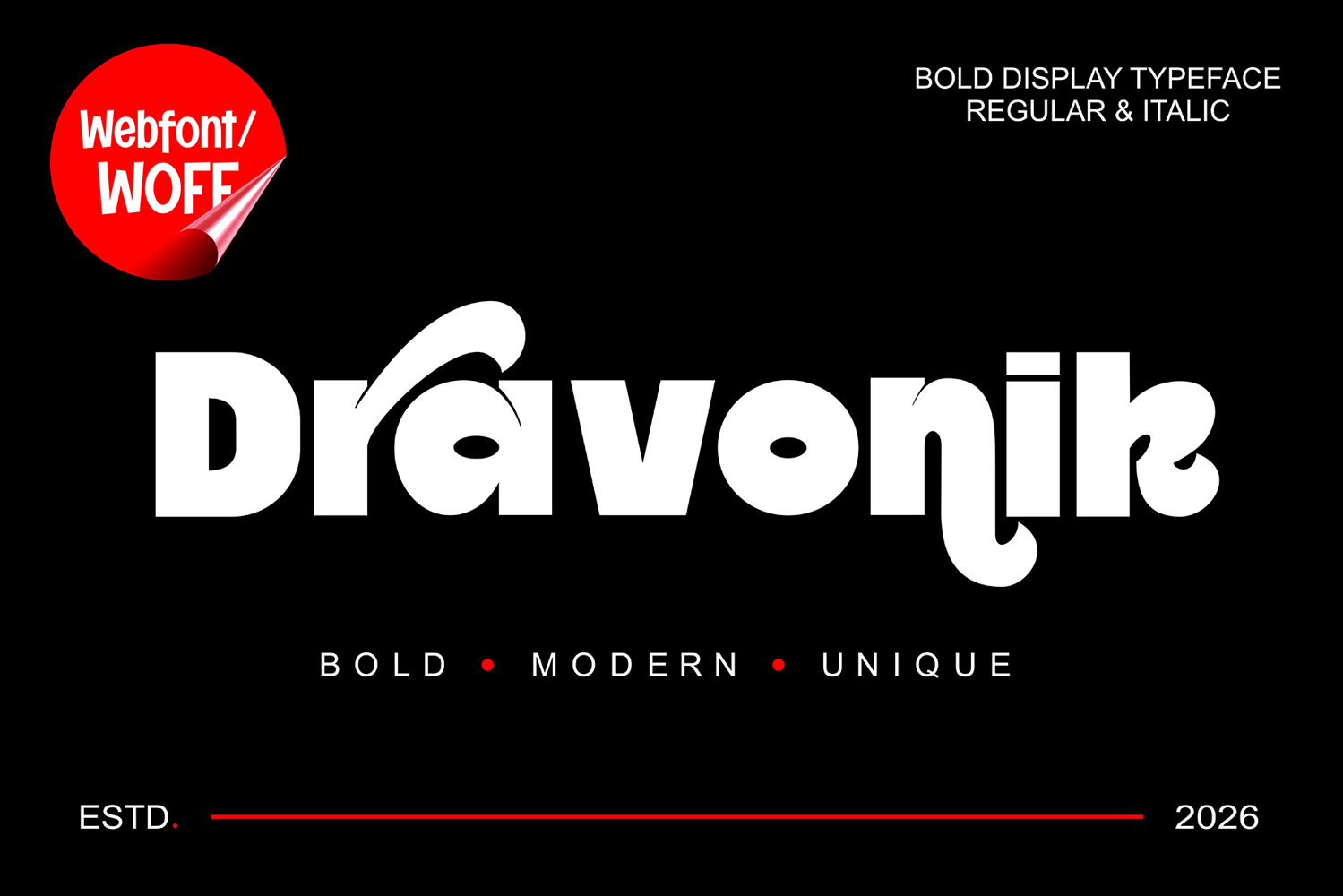
Dravonix Modern Bold Webfont
Dravonix is a bold modern display typeface created to bring powerful typography and premium visual identity into digital experiences. Featuring strong geometric structures, clean curves, and unique stylistic details, this font is designed for modern websites, online branding, digital campaigns, social media visuals, gaming graphics, and contemporary user interfaces.
Inspired by futuristic aesthetics, minimalist branding systems, modern editorial layouts, and luxury visual trends, Dravonix delivers striking typography with strong readability and stylish personality. Its bold display construction helps headlines stand out clearly across different screen sizes while maintaining clean modern aesthetics.
The font combines balanced geometric proportions with expressive character forms, creating typography that feels elegant, confident, and visually memorable. Suitable for technology branding, fashion websites, creative agencies, esports visuals, music promotions, digital advertising, and online presentations.
Regular provides strong clean display typography for modern digital layouts, while Italic adds dynamic movement and stylish contrast for expressive visual compositions.
Features- Uppercase Characters
- Lowercase Characters
- Numbers & Punctuation
- Stylistic Alternates
- Modern Display Style
- Smooth Screen Appearance
- Geometric Letterforms
- Strong Digital Presence
- Stylish Typography Design
Dravonix is optimized for bold digital typography with clean readability and high visual impact. The balanced spacing and strong letterforms help create professional-looking layouts suitable for modern online branding systems.
The stylistic alternates offer greater creative flexibility for unique titles, customized branding, and modern wordmark exploration. Combined with multilingual support, punctuation, and numeric characters, Dravonix becomes a versatile typeface for global digital communication.
Its futuristic and premium aesthetic makes the font highly suitable for brands seeking strong modern identity with elegant bold typography. Whether used in minimal layouts or visually rich compositions, Dravonix maintains a clean and stylish appearance.
The font works beautifully for large hero text, advertising banners, digital posters, fashion campaigns, esports promotions, and creative content requiring modern visual energy.
Inspired by modern typography trends and futuristic display aesthetics, Dravonix transforms ordinary text into powerful visual statements suitable for contemporary digital environments.